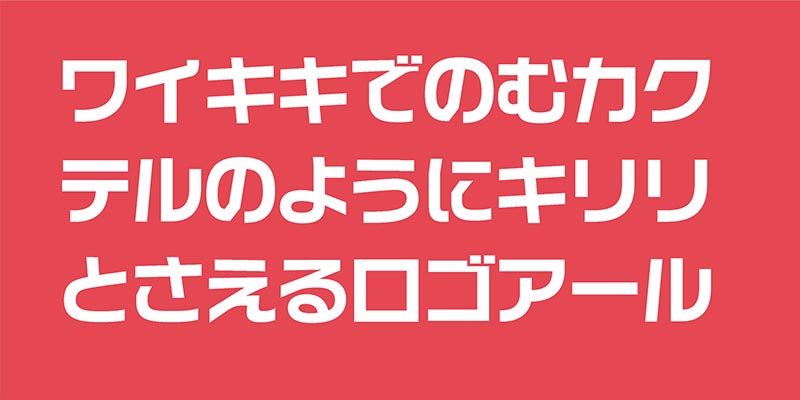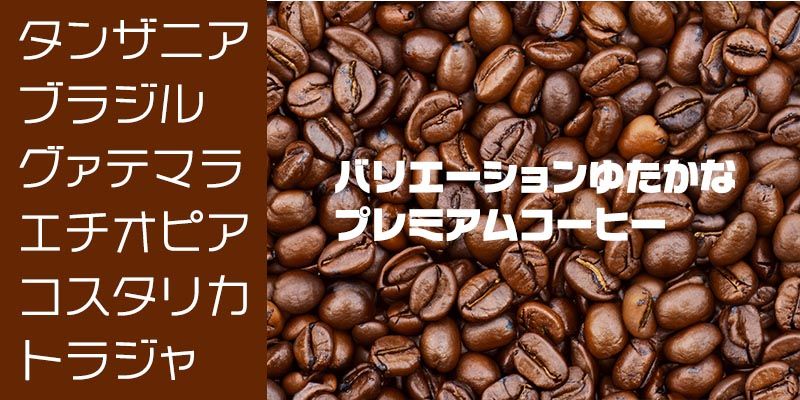
Adobe released the Kamono Kana series, composed of the three kana-only subset typeface families: Logo Line, Logo Arl and Logo Cut in the early 1990s. Now, the Kamono Kana typeface families can be used on Adobe Fonts.
Logo Arl inherits the clear design consistency and the bright touch of Logo Line, but emphasizes the linearity of elements to give a sharp and solid image. Four weight variations are available, and the typeface can be used for display purposes as well as a wider range of purposes.
(Please note this technical limitation before using the fonts: Fonts in this typeface family do not include alphanumeric characters other than full-width numbers. When the IME on your OS is used, “roma-ji” input characters will not be displayed.)
Kamono Design Laboratory
“Even if the times change, good things will continue to be used.”
Kamono Design Laboratory formed by the typeface designer, Minoru Kamono in 1978 has created a number of excellent Japanese typefaces. Minoru Kamono pursued the ideal of designing typefaces to be loved by everyone. We hope you will find his gently expressive typefaces useful.